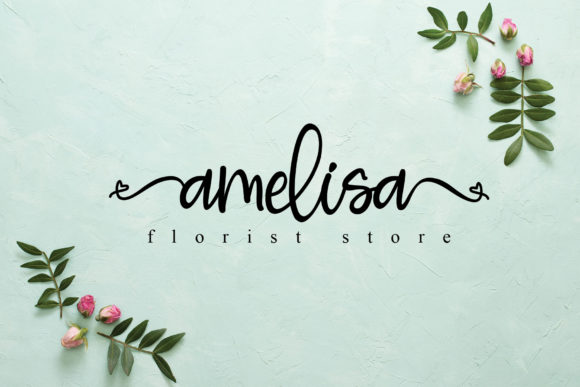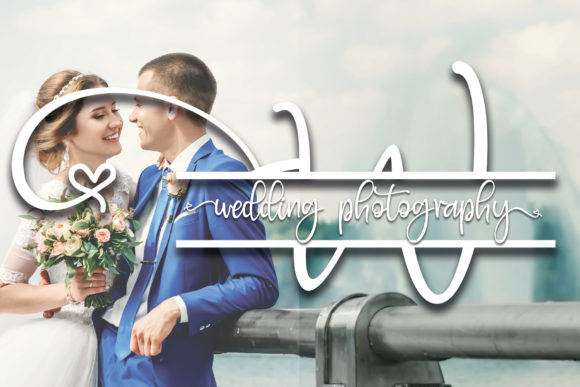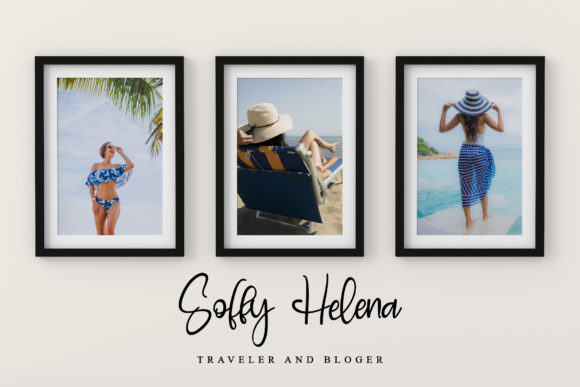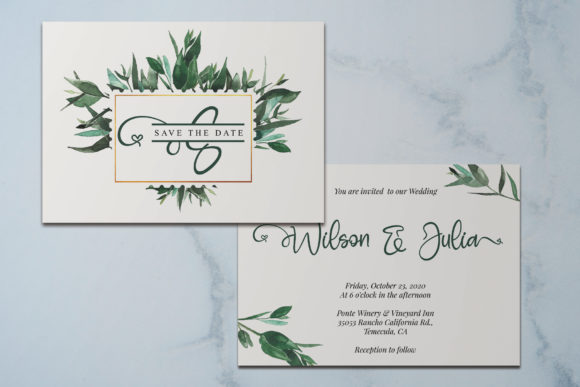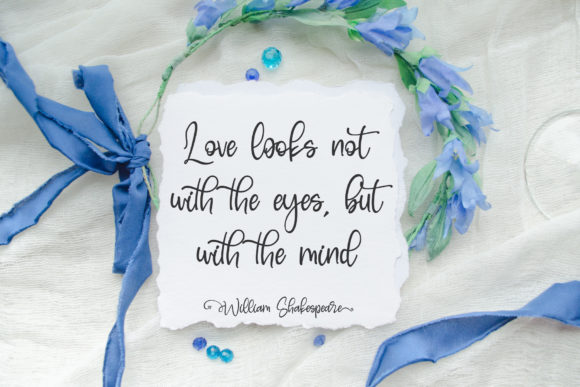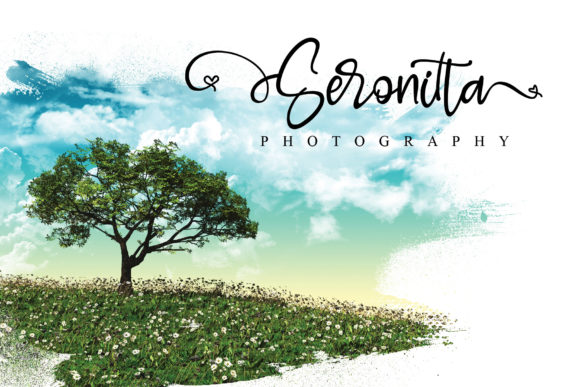
Introducing Bluebell Font: The Sweet and Soft Hand-Lettered Font for Your Creative Projects
Are you looking for a font that can add a touch of sweetness and elegance to your designs? Look no further than Bluebell Font! This beautiful, hand-lettered font is perfect for creating stunning wedding invitations, gorgeous stationery art, eye-catching social media posts, and much more. With its authentic feel and versatile design, Bluebell Font is sure to become a favorite in your font collection.
What Makes Bluebell Font So Special?
Bluebell Font is a sweet, soft hand-lettered font that is designed to capture the essence of handwritten script. Its unique and authentic feel makes it perfect for a wide range of creative projects, from romantic wedding invitations to beautiful stationery art. The font features a wealth of special features, including alternate glyphs and ligatures, which allow you to add a personal touch to your designs.
Bluebell Font is perfect for designers and crafters who want to add a personal touch to their projects. Whether you’re creating wedding invitations, stationery art, or social media posts, this font is sure to impress. Its sweet and soft design makes it perfect for a wide range of creative projects, from formal events to casual crafts.
Use Bluebell Font for:
- Beautiful stationery art and greeting cards
- Eye-catching social media posts and graphics
- Handmade crafts and DIY projects
- Signs and banners
- And much more!
Tips for Using Bluebell Font
Here are a few tips for using Bluebell Font in your creative projects:
- Experiment with different font sizes and colors to add depth and interest to your designs
- Use the font’s alternate glyphs and ligatures to add a personal touch to your projects
- Combine Bluebell Font with other fonts to create a unique and eye-catching design
- Use the font’s PUA encoded characters to add special touches, such as swashes and flourishes
Bluebell Font is a beautiful, hand-lettered font that is perfect for designers and crafters who want to add a touch of sweetness and elegance to their projects. With its authentic feel, versatile design, and PUA encoding, this font is sure to become a favorite in your font collection. Whether you’re creating wedding invitations, stationery art, or social media posts, Bluebell Font is the perfect choice for adding a personal touch to your designs.